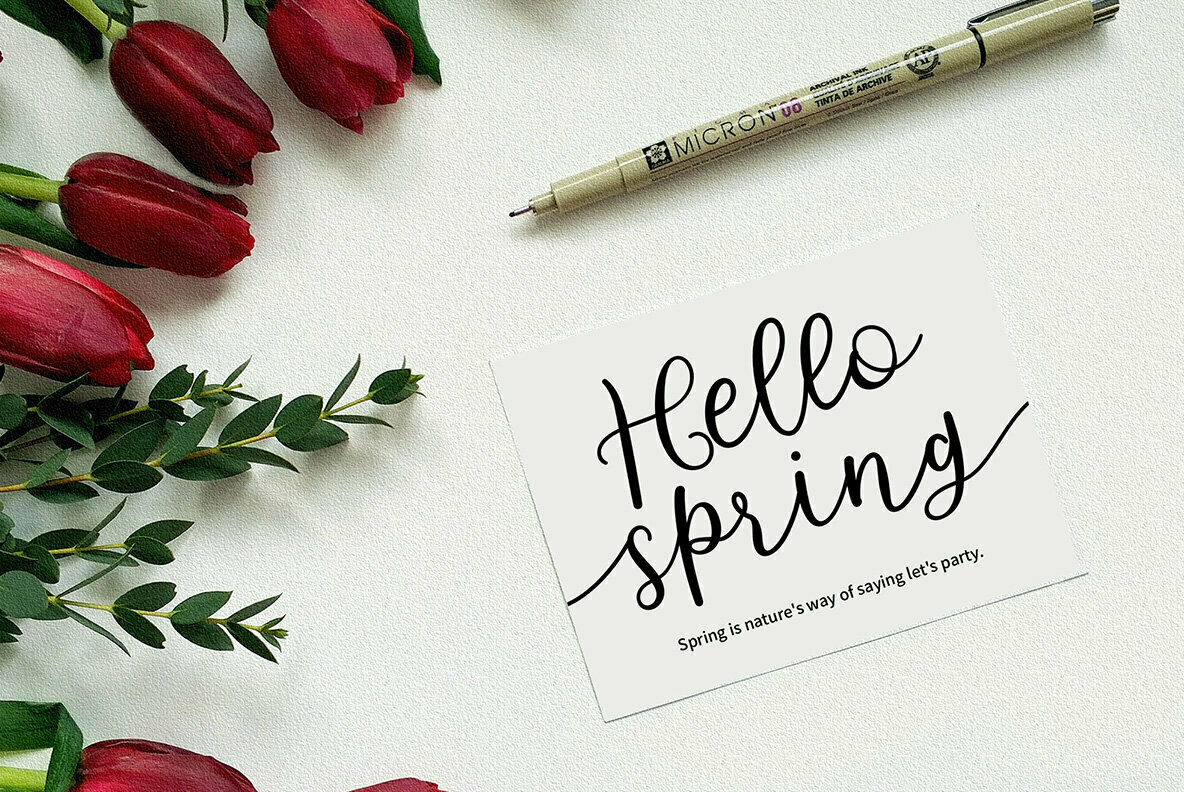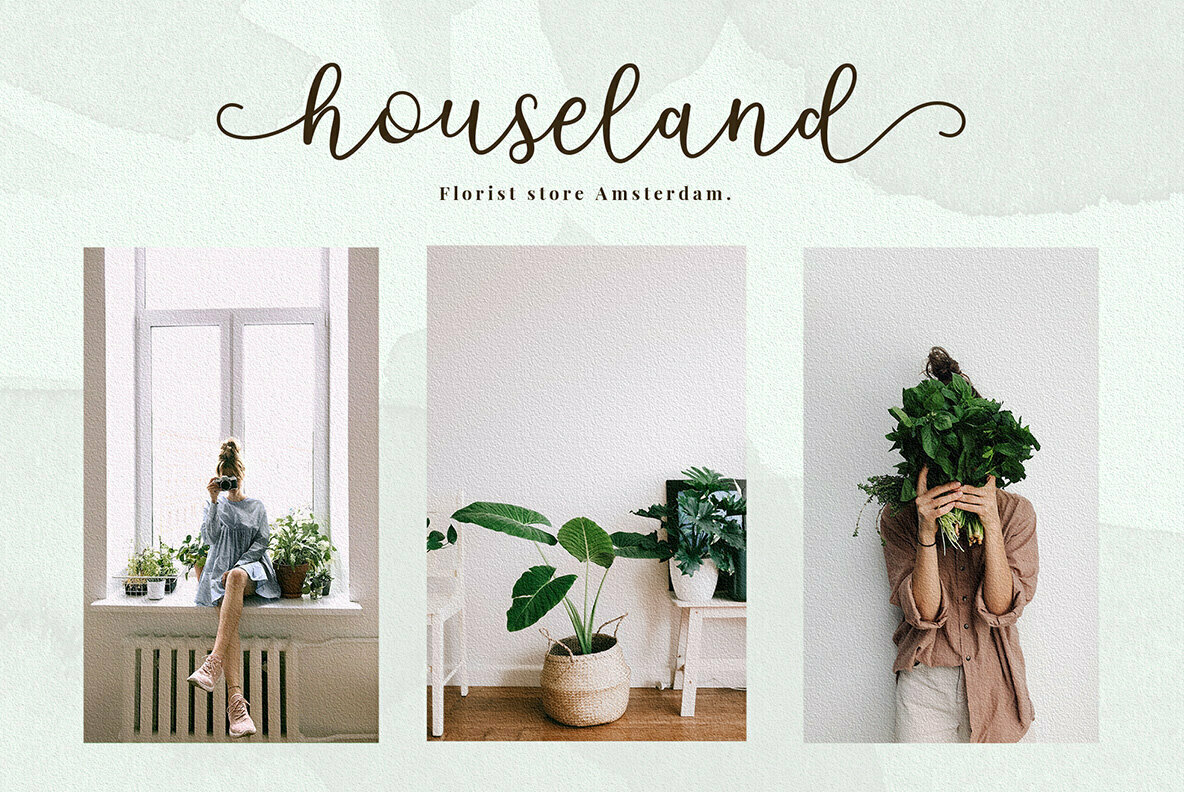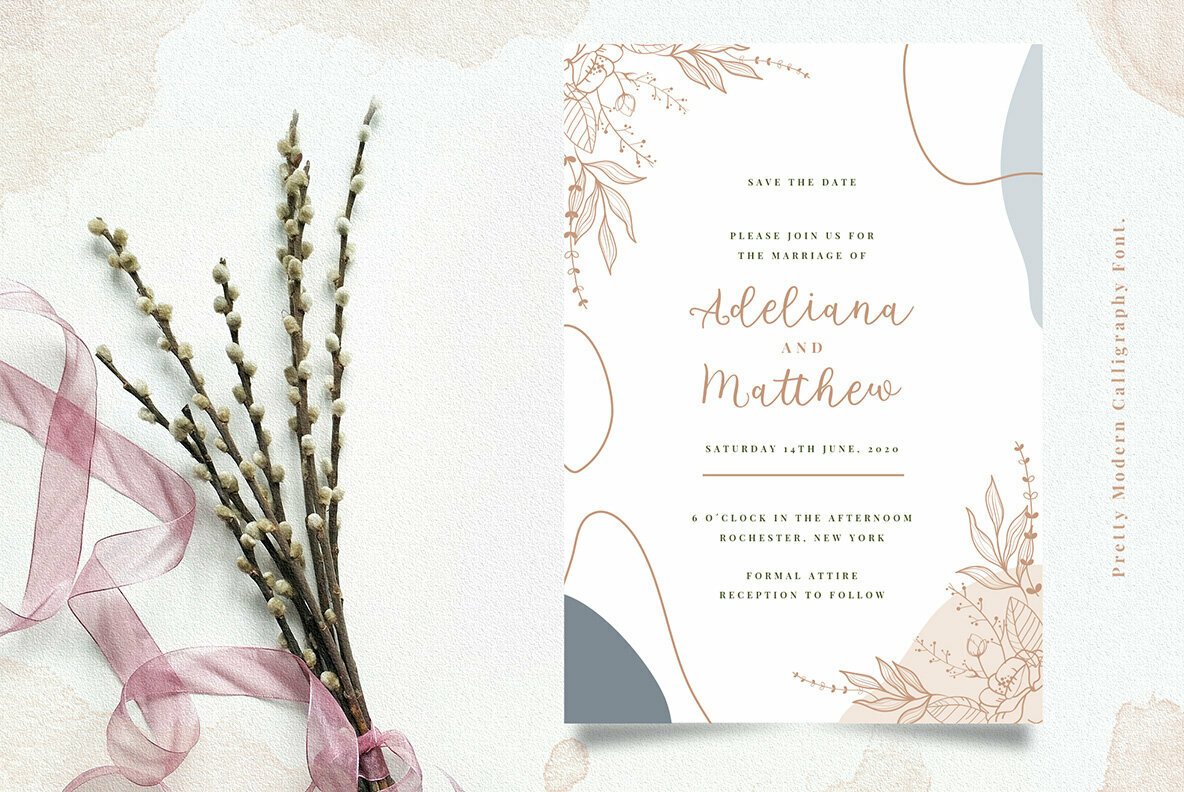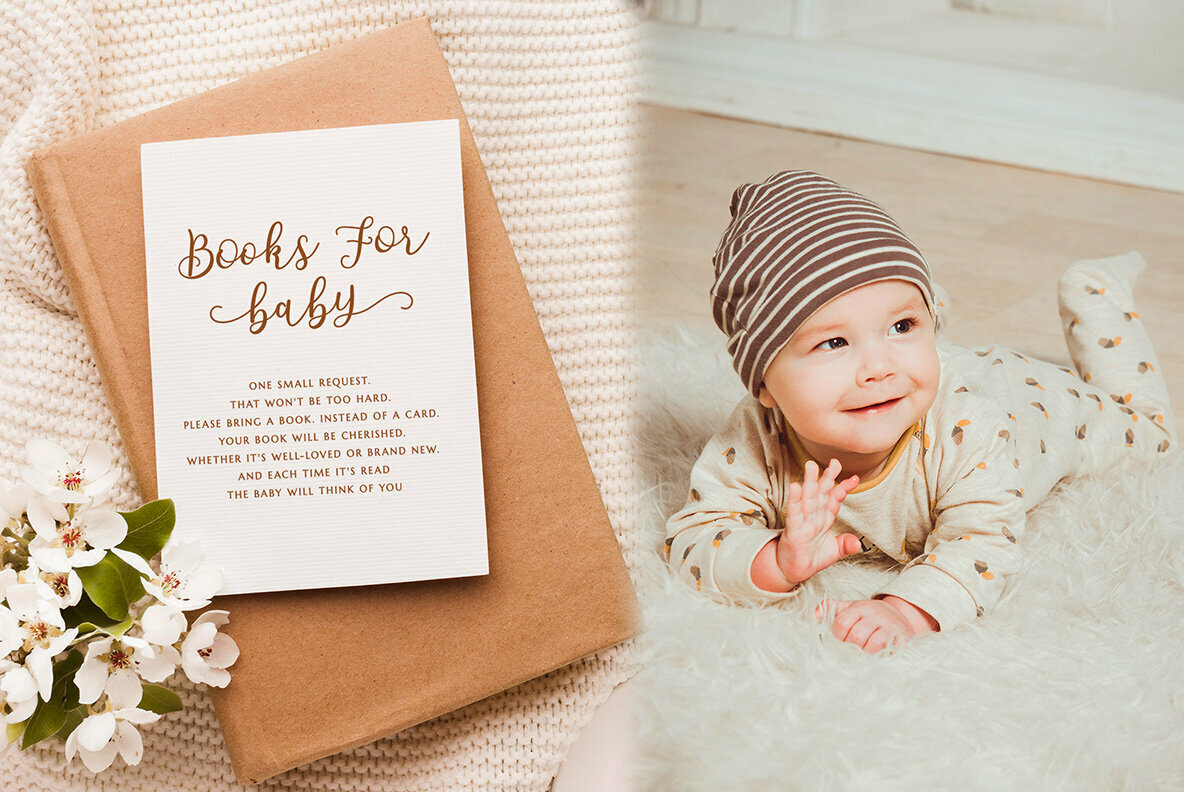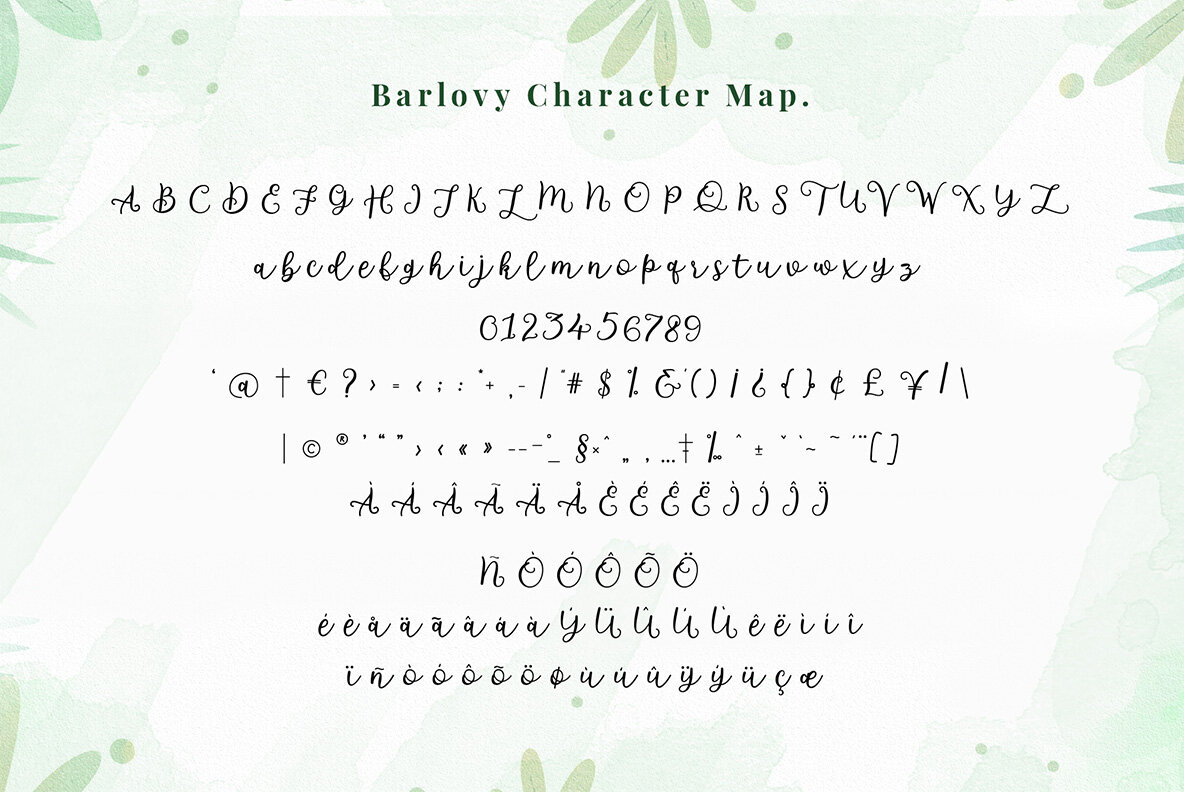
Barlovy Script: Elegant Handwritten Font
Barlovy Script presents a sophisticated choice for designs that require a personalized, handwritten touch. Perfect for wedding invitations, thank you notes, and quotes, this font provides an aesthetic flair that blends seamlessly into various formats, including greeting cards and logos. Its versatile elegance makes it suitable for both personal and professional use, enhancing the charm of business cards and other creative endeavors.
Features:
• Flowing handwritten style
• Elegant and versatile
• Perfect for quotes and invitations